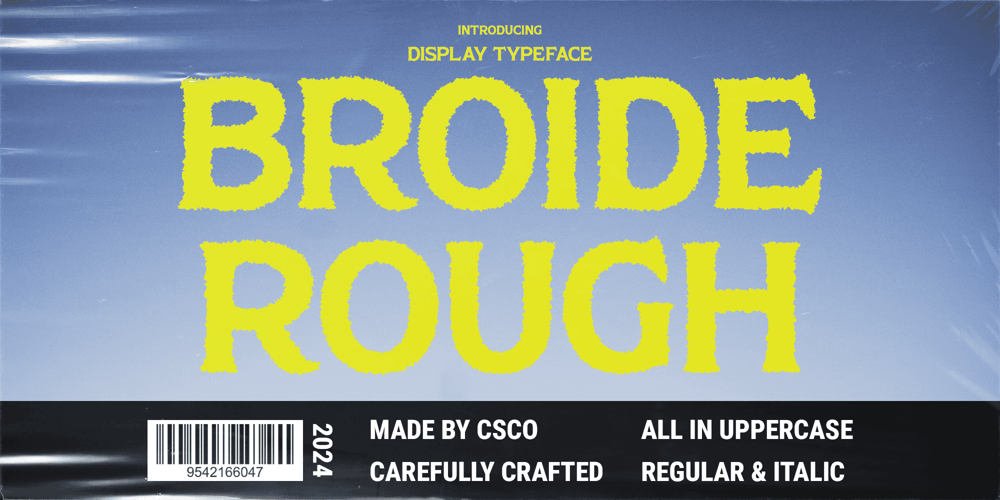
Broide Rough Font Family was designed by Trio Nazzar Saputra, Wahyu Hadi Yuana and published by Craft Supply Co. Broide Rough contains 2 styles and family package options. Broide Rough: Captivating Retro Vibes with a Modern TwistDisplay Serif Font with Rough EffectBroide Rough is a display serif font that evokes a classic and captivating retro vibe with its distinctive rough effect. The textured, rugged character added by the rough effect enhances the uniqueness of this font, making it ideal for designs that seek to showcase a strong vintage touch.Classic and Captivating Retro VibesThe timeless appeal of Broide Rough lies in its ability to blend classic serif elements with a rugged, textured finish. This combination creates a captivating retro aesthetic, perfect for posters, branding, and promotional materials that require a striking and distinctive look.Enhanced Textured CharacterThe rough effect in Broide Rough adds depth and character to each letter, ensuring your designs stand out with a unique visual appeal. Whether used for headlines or branding elements, this font brings a tactile quality that resonates with the nostalgia of vintage design.Versatile for Various ApplicationsBroide Rough is versatile and suitable for a wide range of design applications. From posters to packaging and promotional materials, its distinctive retro vibe lends a strong aesthetic impact to any project. Whether in print or digital formats, this font ensures your designs make a memorable impression.